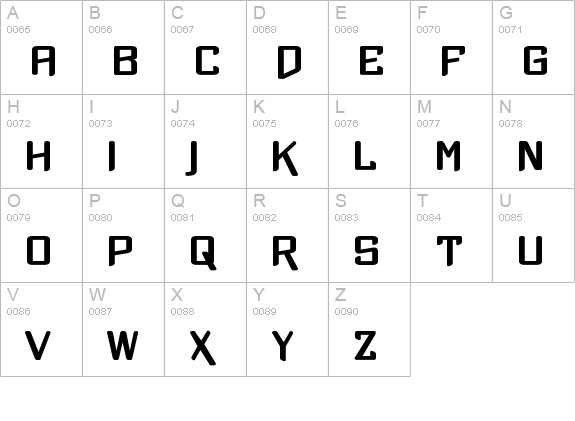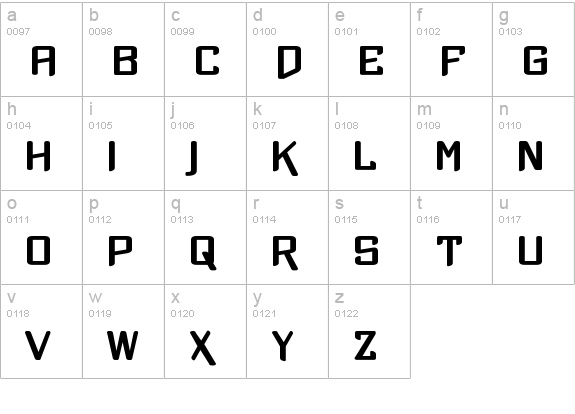
Xtreme Chrome Font Details
Introducing Xtreme Chrome font, a bold and dynamic typeface that exudes a sense of power and modernity. With its sleek chrome-inspired design, this font is perfect for making a statement in your projects. The sharp edges and metallic sheen of Xtreme Chrome will captivate your audience and elevate your designs to the next level. What's even better is that Xtreme Chrome font is completely free to download at FontsMarket.com. Now you can add a touch of elegance and sophistication to your creations without breaking the bank. Whether you're designing a logo, creating posters, or crafting social media graphics, Xtreme Chrome font is sure to make a lasting impression. Download it today and let your creativity shine with this striking and versatile typeface.